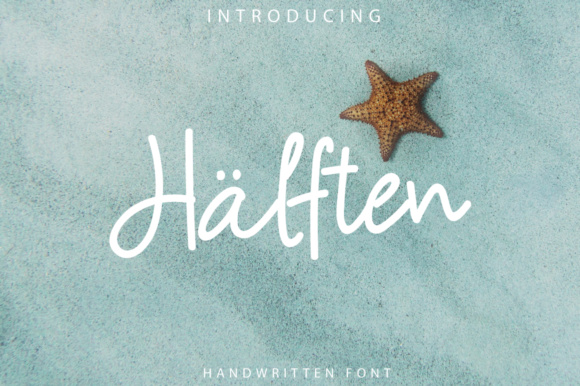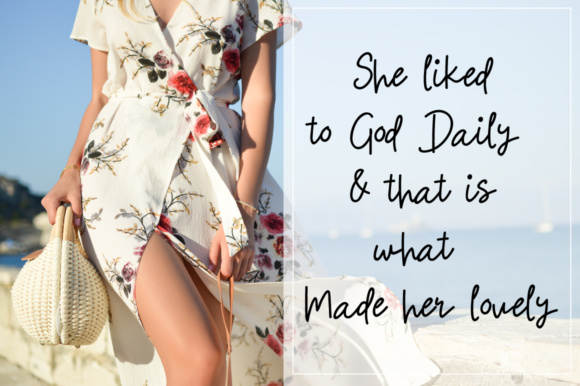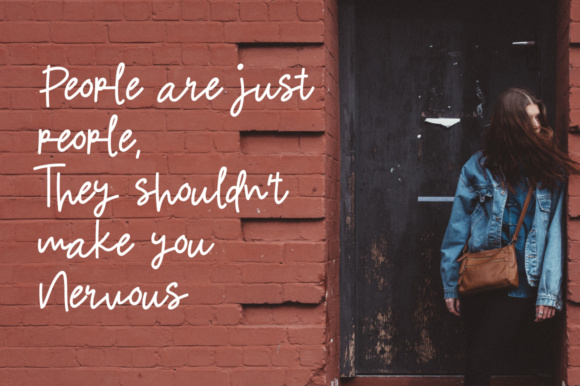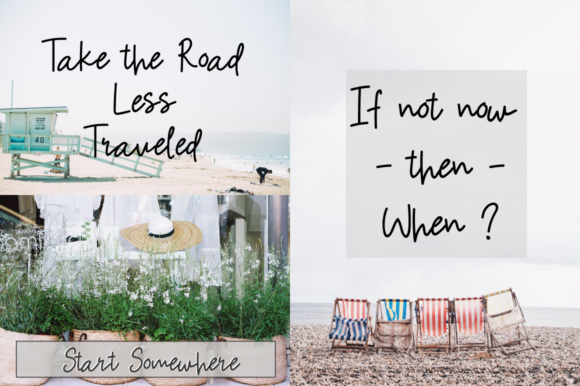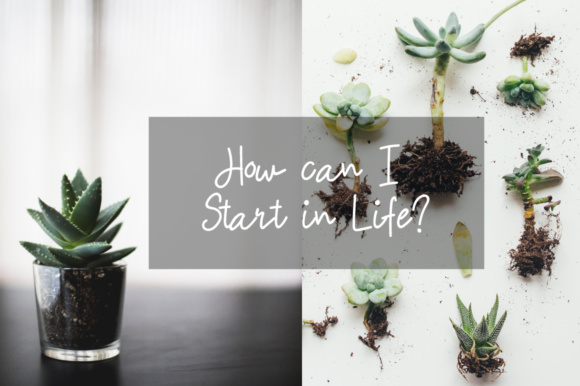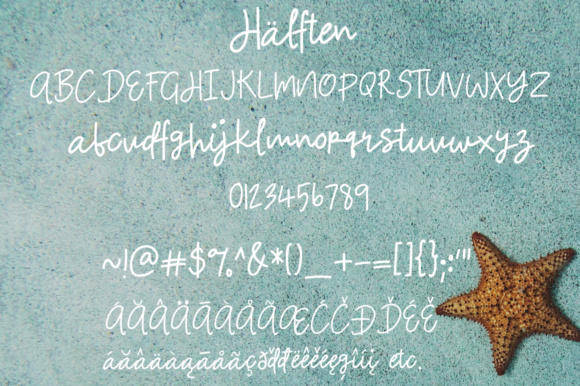
Halften Font
About Halften Font
The Halften is a beautiful handwritten brush script. It’s perfect for wedding invitations, blogs, book covers, and much more!